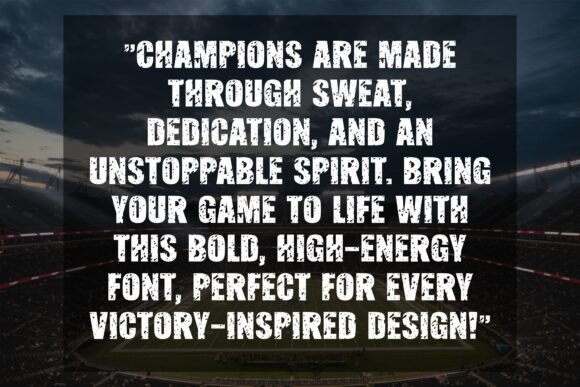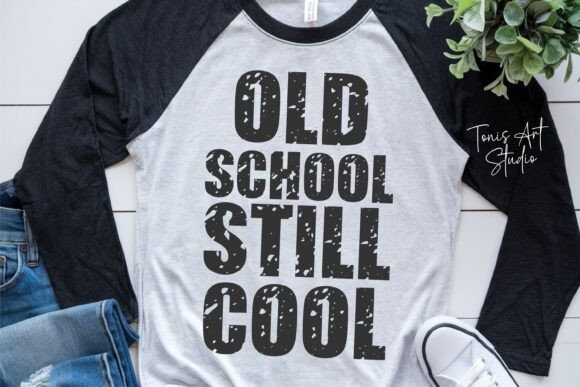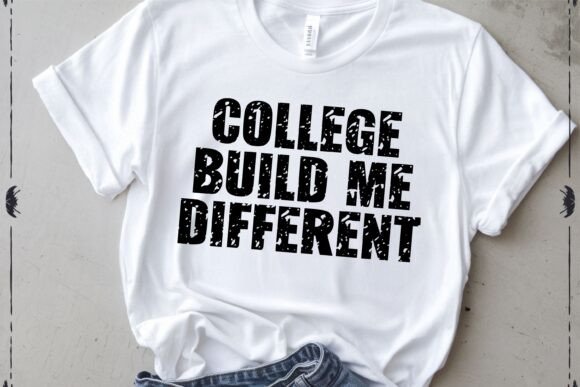
Introducing the College Distressed Font: A Bold, Grunge-Style Typeface for Retro College Graphics
Are you looking for a font that captures the essence of a vintage college aesthetic? Do you want to add a touch of nostalgia to your designs, posters, t-shirts, logos, and branding? Look no further than the College Distressed Font, a bold, grunge-style typeface that is perfect for creating retro college graphics with a rugged, worn-out feel.
What is the College Distressed Font?
The College Distressed Font is a handcrafted, distressed typeface designed to mimic the look of vintage college graphics. With its rough edges, distressed textures, and aged effect, this font is ideal for designers and crafters who want to create authentic, nostalgic designs. Whether you’re working on a project for a college client or simply want to add a touch of retro flair to your designs, this font is the perfect choice.
Key Features of the College Distressed Font
• Bold, vintage college-style typeface: The College Distressed Font is a bold, eye-catching typeface that is perfect for creating statement pieces.
• Distressed textures and rough edges: The font features distressed textures and rough edges, giving it a worn-out, nostalgic feel.
• Handcrafted aged effect: The font has a handcrafted aged effect that adds to its authentic, vintage look.
• 12 bonus grunge brushes: The font comes with 12 bonus grunge brushes that allow you to customize the distressed effect and add extra texture to your designs.
What Can I Use the College Distressed Font For?
The College Distressed Font is a versatile typeface that can be used for a range of design projects, including:
• Vintage college graphics: Create authentic, retro-style graphics for college clients or projects.
• Distressed logos & branding: Add a touch of nostalgia to your logos and branding with this bold, grunge-style typeface.
• T-shirts, hoodies & merch: Create eye-catching apparel with this bold, distressed font.
• Cricut & Silhouette projects: Use the font to create custom vinyl decals, iron-on designs, and more.
• Sublimation prints: Create stunning sublimation prints with this bold, vintage-style font.
• Signage: Use the font to create eye-catching signs with a retro, nostalgic feel.
Why Choose the College Distressed Font?
The College Distressed Font is a unique and versatile typeface that offers a range of benefits, including:
• Authentic, vintage aesthetic: The font captures the essence of a vintage college aesthetic, making it perfect for retro-style designs.
• Customizable distressed effect: The 12 bonus grunge brushes allow you to customize the distressed effect and add extra texture to your designs.
• Easily readable: Despite its distressed effect, the font is easily readable, making it perfect for use in a range of design projects.
The College Distressed Font is a bold, grunge-style typeface that is perfect for creating retro college graphics with a rugged, worn-out feel. With its distressed textures, rough edges, and handcrafted aged effect, this font is ideal for designers and crafters who want to add a touch of nostalgia to their designs. Whether you’re working on a project for a college client or simply want to create authentic, vintage-style designs, this font is the perfect choice.